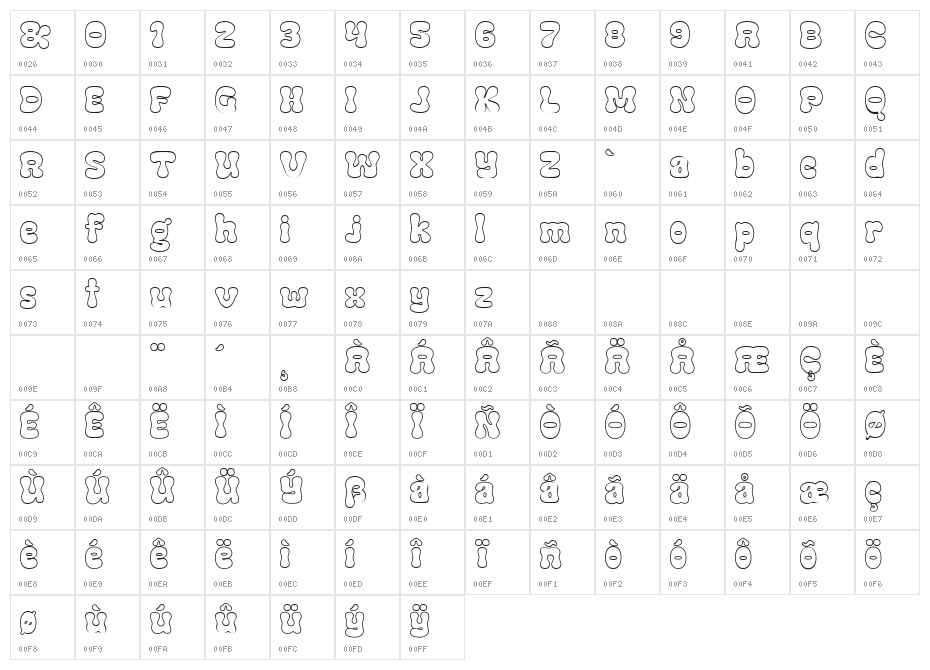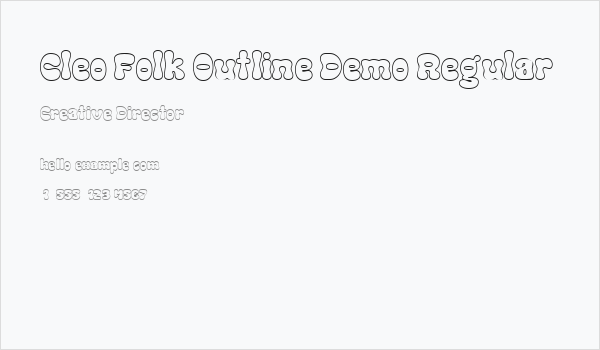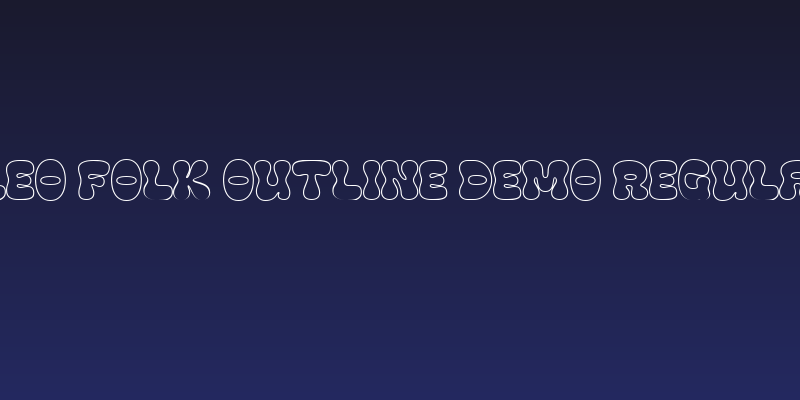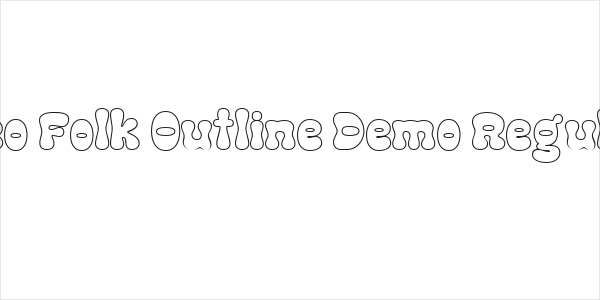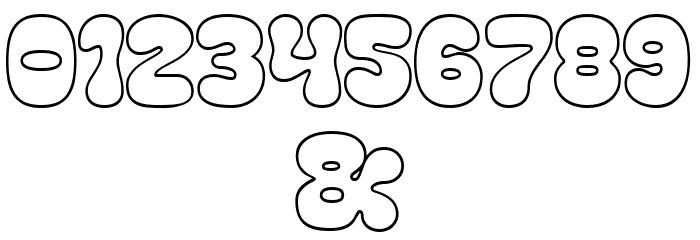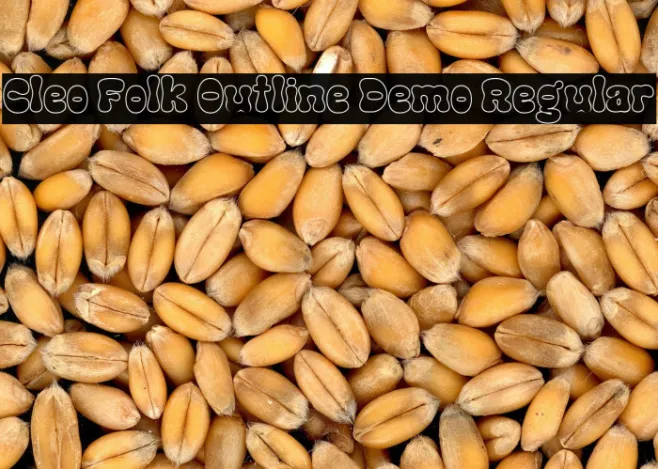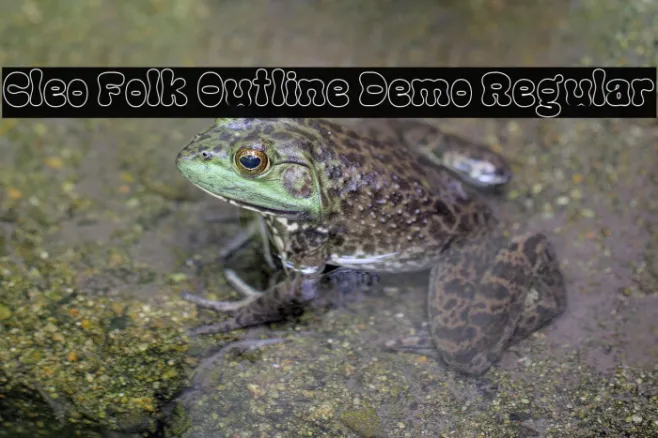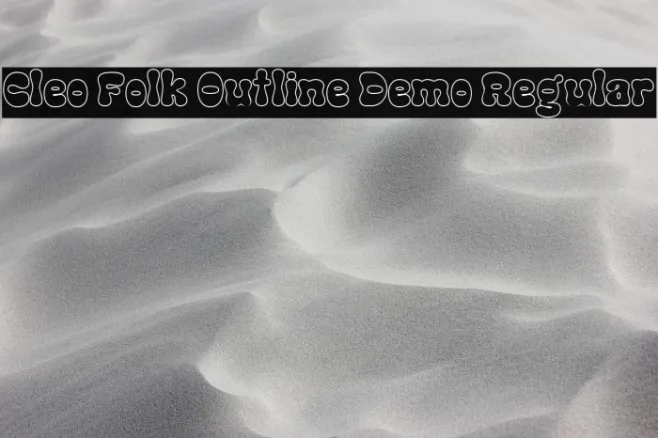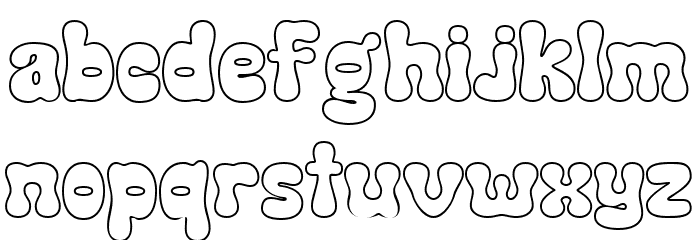
Cleo Folk Outline Demo Regular Font
Cleo Folk Outline Demo Regular Description
This font features a playful and whimsical outline style, characterized by its bold, rounded shapes and hollow interiors. The letters have a bubbly appearance, with smooth curves and a consistent thickness throughout the outlines. This design gives it a fun and approachable feel, making it ideal for creative and informal projects. The font maintains a uniform width across all characters, providing a balanced and cohesive look. Its unique style is both eye-catching and versatile, suitable for a variety of design applications.
| Overall Style | Playful |
| Use Case | Logos, Posters, Creative projects |
| Proposed Projects | Ideal for children's books, playful branding, party invitations, and creative posters. |